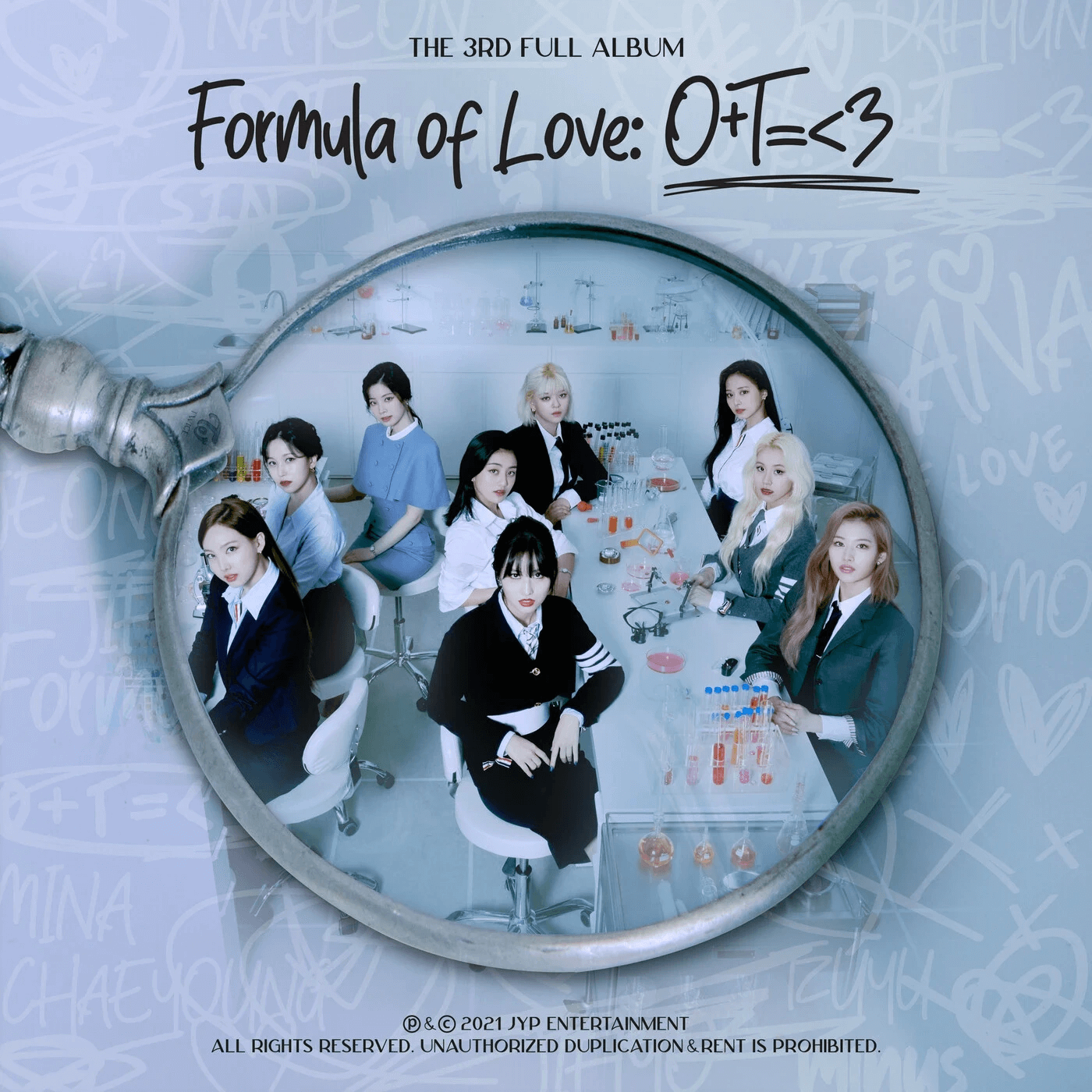
Formula of Love Font
Fonts in Use*Formula of Love: O+T=<3 is the 3rd studio album by South Korean girl group TWICE, released in November 2021. The album features 9 tracks including the title track "Scientist" and showcases the group's growth in music and performance.
The handwriting script, The Absolute Regular by Nirmana Visual, was used for the album title Formula of Love. The sans serif font with contrasting strokes used in the album's design is Aurora Sans by Misha Sova.